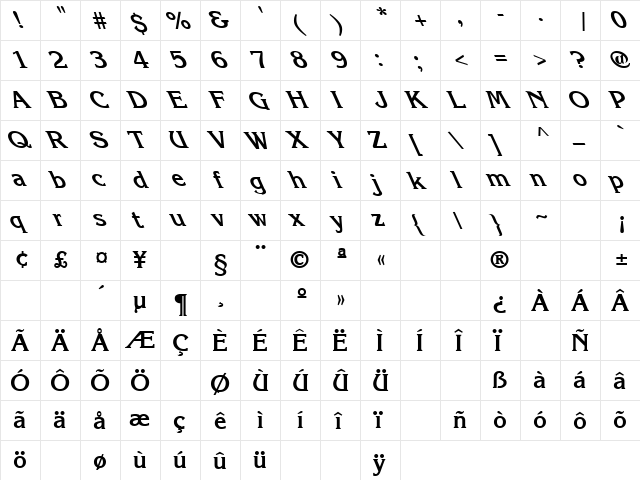
Home Tonight 1 Regular Font Preview
Home Tonight 1 Regular
Design Context for Home Tonight 1 Typeface
Home Tonight 1 takes a measured approach to typography — its balanced proportions and neutral character make it a reliable workhorse for both digital and print work.